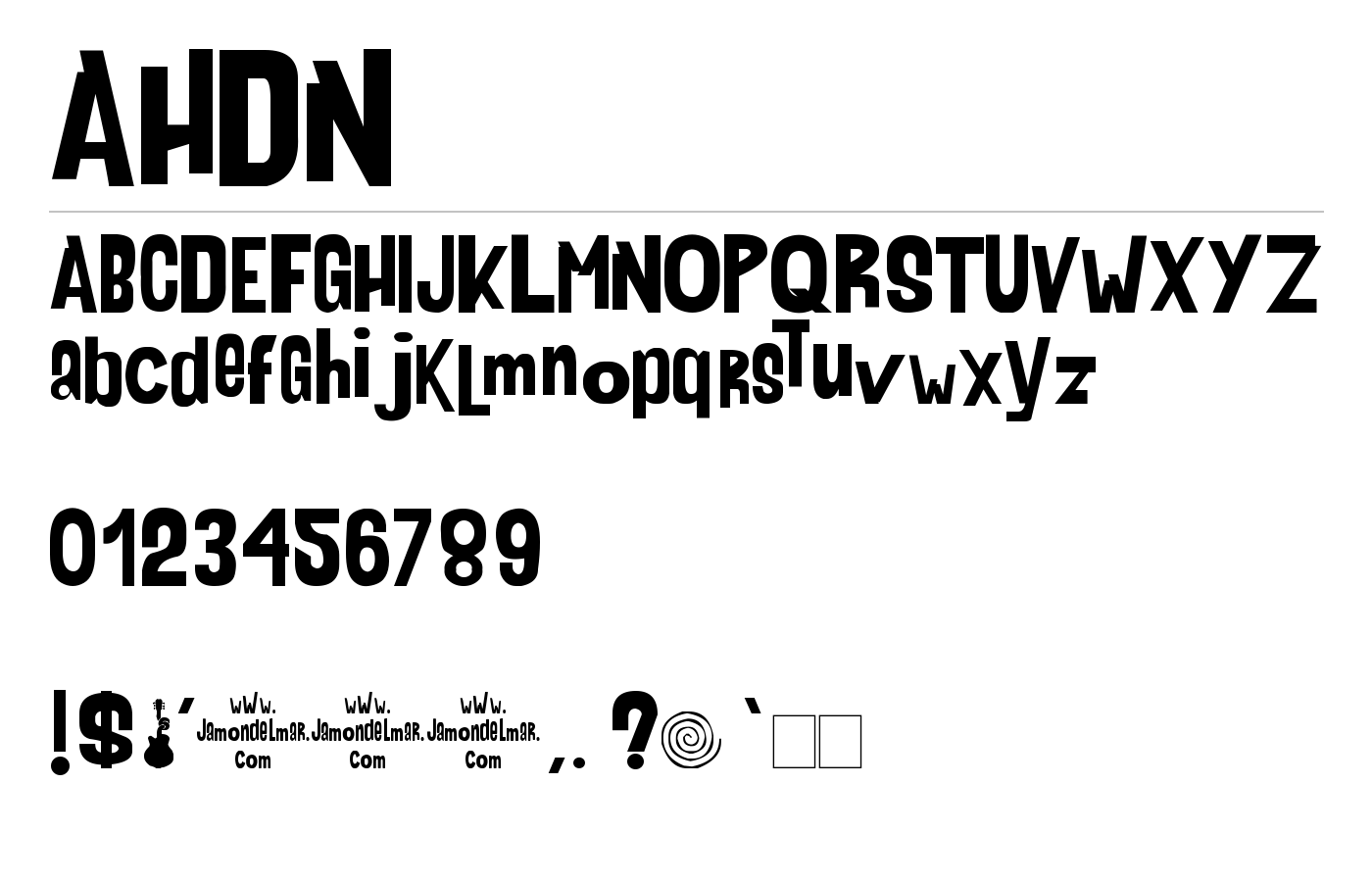
AHDN is a bold, condensed sans serif font with a strong, modern presence and a slightly quirky character. Its tall, narrow letterforms combined with low contrast and subtle irregularities give it an edgy, urban feel that works well for headlines, posters, and branding that seek a bold, attention-grabbing look. This font is ideal for creative projects wanting to combine impact with a touch of uniqueness and personality.
AHDN Font
About AHDN Font